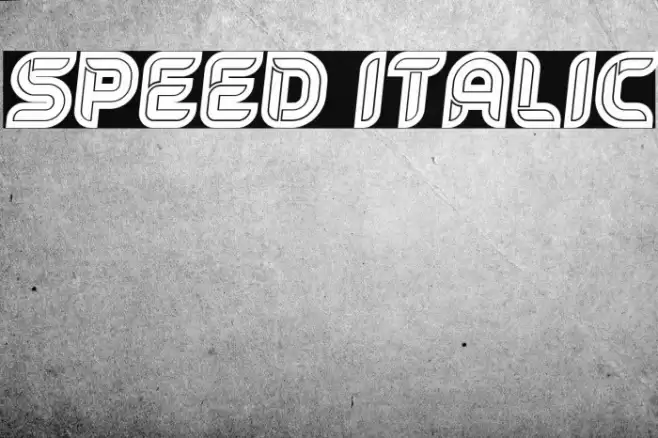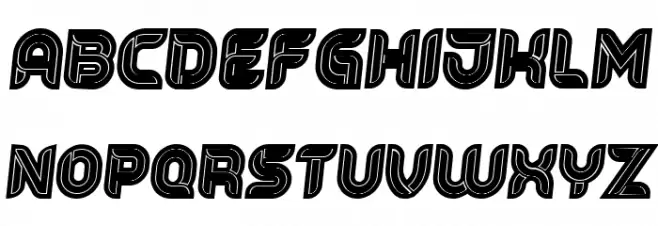
Speed Italic Font
Speed Italic Description
This font features a dynamic and bold design with a distinct italic slant, giving it a sense of speed and motion. The characters are outlined with a double-line effect, adding depth and a three-dimensional appearance. The uppercase letters are uniform in height, with a consistent stroke width that enhances readability while maintaining a decorative flair. The font's style is reminiscent of retro-futuristic aesthetics, making it ideal for projects that require a bold and energetic look.
A bold, italic font with a retro-futuristic, outlined style from Uncategorized fonts.
- Proposed Projects: Ideal for sports branding, automotive advertisements, video game titles, and dynamic poster designs.
- Overall Style: Retro-Futuristic